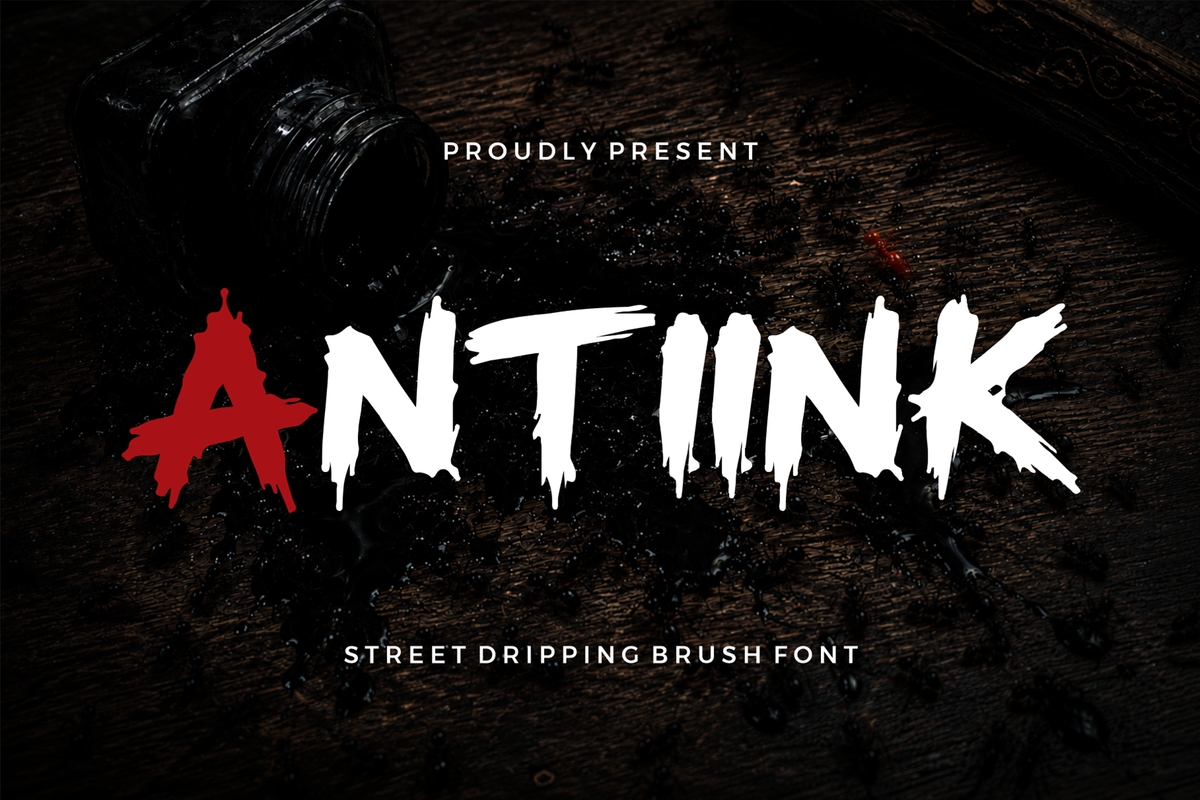
Antiink
Introducing Antiink, a bold street dripping brush font inspired by underground graffiti culture, raw ink strokes, urban handstyle lettering, and rebellious street art aesthetics. Designed with aggressive brush textures and expressive dripping details, Antiink delivers powerful typography with authentic street energy and strong visual personality. Antiink combines handcrafted brush strokes with rough dripping effects to create typography that feels bold, dynamic, and full of attitude. The irregu